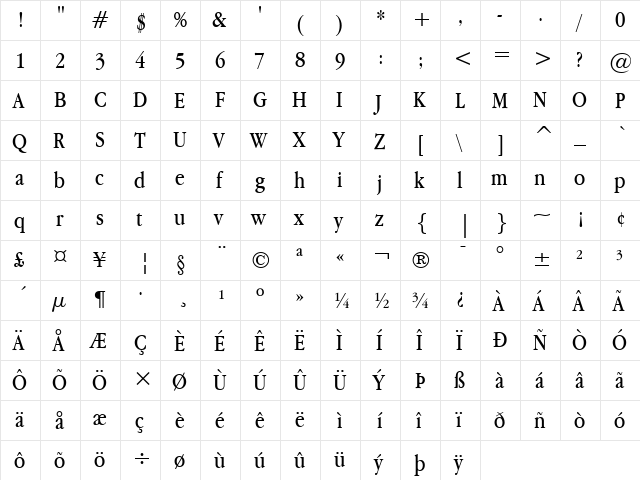
Apple Garamond BT Regular
Design Context for Apple Garamond BT Typeface
Apple Garamond BT is a composed and adaptable typeface that performs quietly and consistently across a wide range of design contexts.